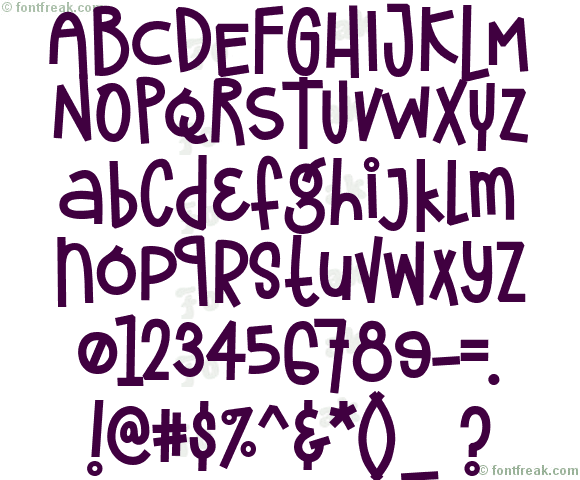
Frostela
About Frostela
Frostela is a captivating display font designed by Situjuh Nazara, falling into the category of decorative typefaces. This font features a unique blend of playful and whimsical elements, making it a fantastic choice for projects that call for a touch of creativity and charm. The strokes in Frostela exhibit a moderate weight, with a delightful contrast that adds visual interest. The letters are well-spaced, ensuring readability while maintaining a lively character. Decorative elements are present, with playful curves and unexpected angles that give the font an artistic flair, making it stand out in any design.
Frostela is particularly well-suited for a variety of use cases. It can elevate wedding invitations with its enchanting style, making them feel both personal and festive. Additionally, it works beautifully for movie posters, adding an element of intrigue and excitement. Restaurant menus can also benefit from Frostela, as its unique character can enhance the dining experience, drawing attention to special dishes. Furthermore, content creators will find this font ideal for social media graphics, where a memorable visual impact is essential.
Targeting graphic designers, small business owners, and content creators alike, Frostela offers a versatile option for those looking to make a statement. Its distinctive appearance draws the eye, inviting viewers to engage with the content. For anyone seeking a fresh and playful typeface, Frostela font free download provides an excellent opportunity to enhance your design projects without any cost.
In conclusion, Frostela stands out for its vibrant personality and versatility. Its decorative style, combined with functionality, makes it a must-have for anyone looking to infuse their work with creativity and flair. Whether for personal or commercial use, Frostela is sure to leave a lasting impression.